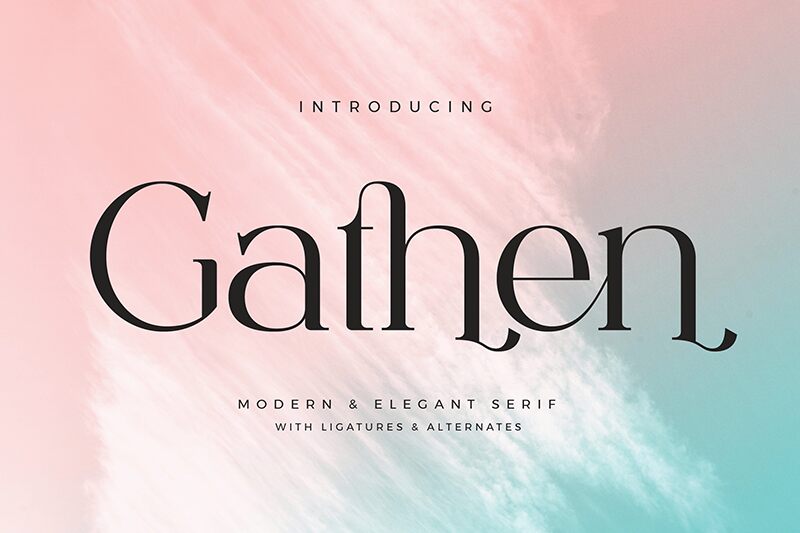
Gathen
Gathen font, crafted by Biham Santoso, is a refined and timeless serif font with an elegant and classic influence. Its sophisticated design exudes a sense of calmness and tranquility making it perfect for users who require professionalism in their work.
Achieve an overall remarkable experience for your projects by using this free serif font. Use it in books, educational websites, newspapers, business magazines, header ads, hotel branding ideas, beauty care blogs & articles, health brochures, insurance firm advertisement posters among others.